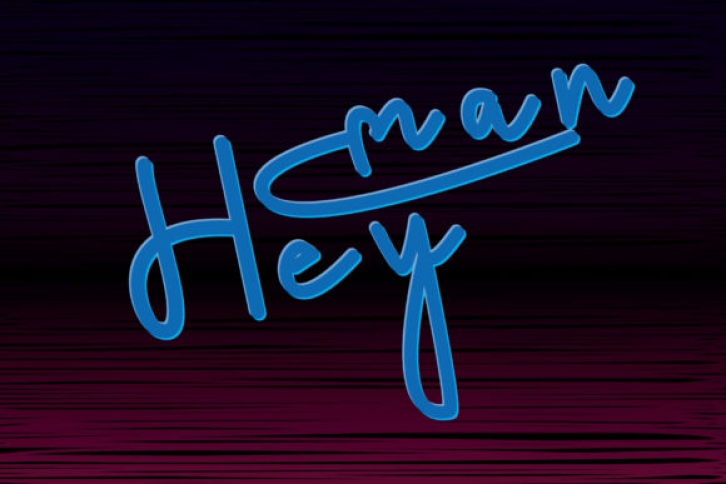
Heyman is a genuine and casual handwritten font. It looks great on a variety of designs requiring a personalized style, such as invitations, thank you cards, weddings, greeting cards, logos and so on.